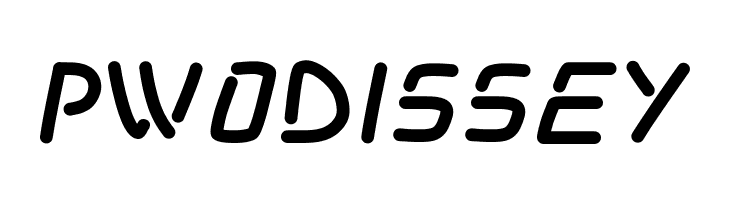
A bold, italic font with a dynamic and modern style.
A bold, geometric font with a futuristic and industrial style.
A modern, rounded font with a futuristic and bold design.
A sleek, modern italic font with geometric lines and a futuristic style.